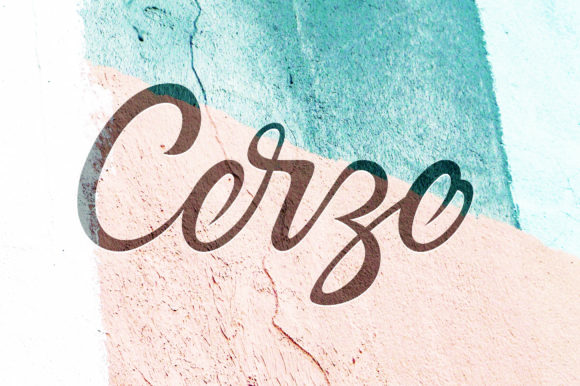
Cerzo Font: Elevate Your Designs with Elegance and Sophistication
In the world of typography, a well-crafted font can make all the difference in elevating your designs from ordinary to extraordinary. If you’re a designer, craftsperson, or simply someone who appreciates the art of beautiful writing, then you’re in for a treat with Cerzo Font. This professional and elegant script font is designed to bring a touch of sophistication to your projects, and we’re excited to dive into its features and benefits.
What is Cerzo Font?
Cerzo Font is a stunning script font that boasts a well-balanced design, making it perfect for a wide range of applications, from branding and advertising to packaging and digital media. Its elegant lines and curves are sure to captivate your audience and leave a lasting impression. Whether you’re working on a luxury brand, a creative agency, or a personal project, Cerzo Font is an excellent choice.
PUA Encoding: Unlocking Endless Creative Possibilities
One of the standout features of Cerzo Font is its PUA (Private Use Area) encoding. This means that you can access a wide range of glyphs and swashes with ease, giving you the creative freedom to experiment and push the boundaries of your designs. With PUA encoding, you can:
- Access alternative characters and ligatures to add visual interest
- Use swashes and flourishes to create unique and eye-catching text
- Mix and match different glyphs to create a distinctive look
Key Features of Cerzo Font
So, what makes Cerzo Font so special? Here are some of its key features:
- Professional and elegant design: Cerzo Font is crafted with precision and attention to detail, ensuring that it looks great in any context.
- Well-balanced: The font’s balanced design makes it easy to read and visually appealing.
- PUA encoded: Unlock a world of creative possibilities with easy access to glyphs and swashes.
- Versatile: Suitable for a wide range of applications, from digital media to print materials.
Why Choose Cerzo Font?
With so many fonts available, why should you choose Cerzo Font? Here are just a few compelling reasons:
- Elevate your designs: Add a touch of elegance and sophistication to your projects.
- Stand out from the crowd: Cerzo Font’s unique design ensures that your work will stand out in a crowded marketplace.
- Easy to use: With PUA encoding, you can access a wide range of glyphs and swashes with ease.
- Support for multiple languages: Cerzo Font supports a range of languages, making it a great choice for global brands and projects.
In conclusion, Cerzo Font is a professional and elegant script font that is sure to elevate your designs to new heights. With its well-balanced design, PUA encoding, and versatility, it’s the perfect choice for designers, craftspersons, and anyone looking to add a touch of sophistication to their projects. So why wait? Download Cerzo Font today and discover a world of creative possibilities!